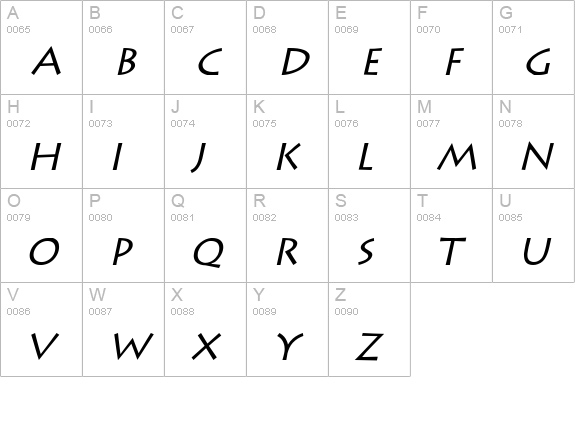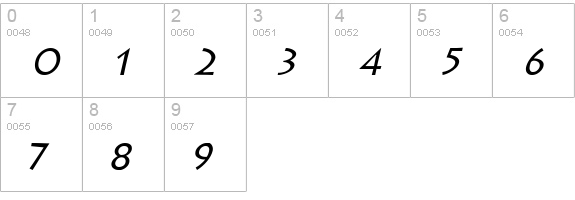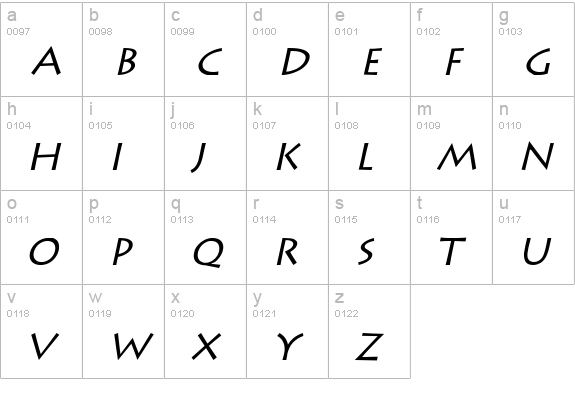
Liste Italic Font Details
Liste Italic is a distinctive, italic variant in the Liste typeface family \xE2\x80\x94 well suited to design and typography projects.
Liste Italic is a stunning and elegant font that exudes sophistication and style. With its sleek and modern design, Liste Italic is perfect for adding a touch of class to any project. The italicized characters create a sense of movement and fluidity, making this font ideal for conveying a sense of dynamism and energy. What's more, Liste Italic is available for free download at FontsMarket.com. This means that you can easily access this exquisite font without any cost, making it a valuable addition to your font collection. Whether you're working on a professional design project or simply looking to enhance your personal creations, Liste Italic is sure to impress with its versatility and charm. Elevate your designs with Liste Italic and make a statement that truly stands out.